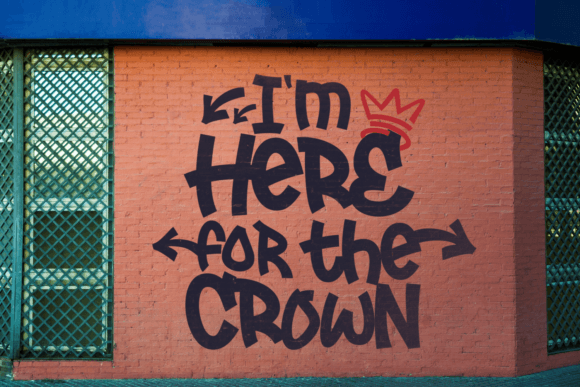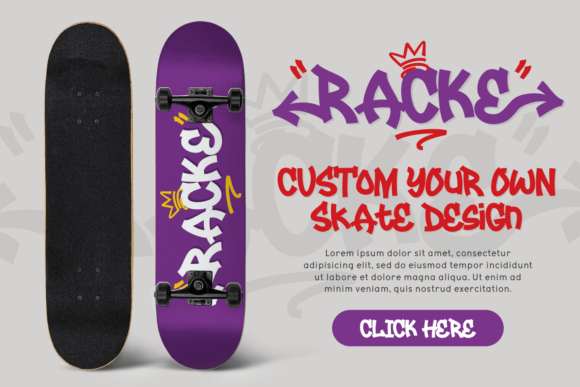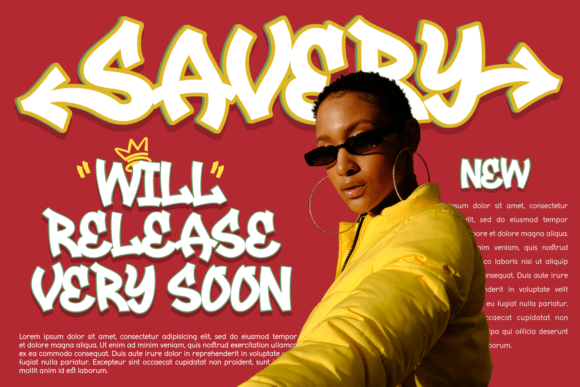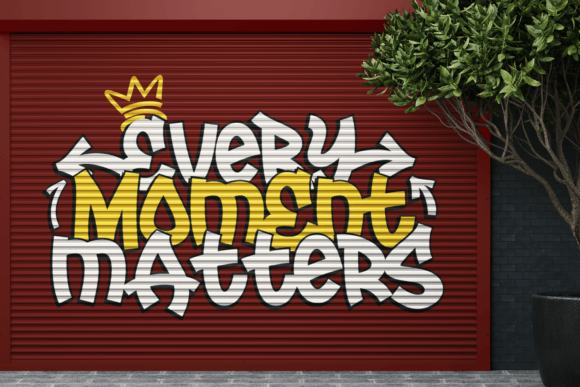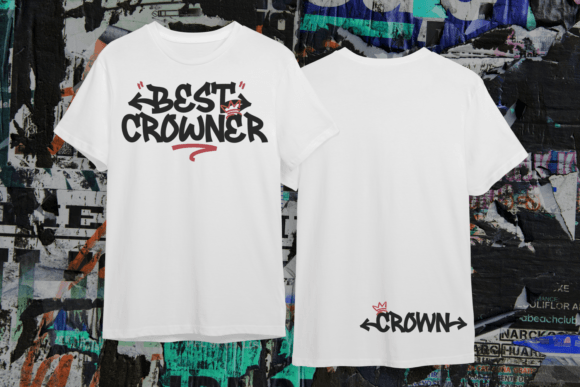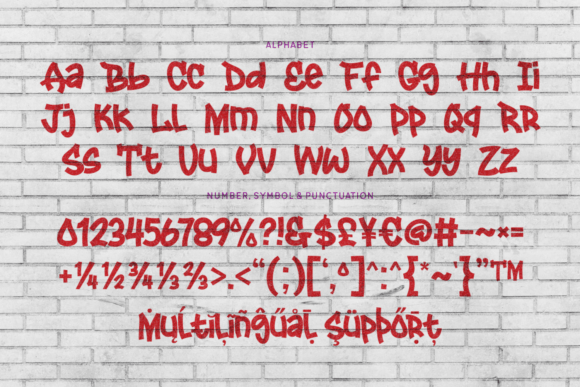
Unleash Your Creativity with Blaster Glory Font: The Ultimate Urban-Style Display Font
Are you a designer or crafter looking for a font that can add a touch of edginess and coolness to your projects? Look no further than Blaster Glory Font! This urban-style display font is perfect for creating hip and trendy designs with a graffiti vibe. In this article, we’ll dive into the features and benefits of Blaster Glory Font, and explore how it can elevate your designs to the next level.
What is Blaster Glory Font?
Blaster Glory Font is a modern, urban-style display font that’s designed to make a statement. Its unique and edgy design makes it perfect for creating bold and eye-catching designs that demand attention. Whether you’re working on a branding project, a poster, or a social media graphic, Blaster Glory Font is sure to add a touch of coolness and sophistication.
Key Features of Blaster Glory Font
- Urban-Style Design: Blaster Glory Font features a unique and edgy design that’s perfect for creating hip and trendy designs with a graffiti vibe.
- PUA Encoded: This font is PUA encoded, which means you can access all the glyphs and ligatures with ease. This makes it easy to use and customize the font to suit your needs.
- Display Font: Blaster Glory Font is a display font, which means it’s designed to be used at larger sizes. It’s perfect for headlines, titles, and other design elements that need to make a statement.
- Cool and Edgy: This font has a cool and edgy vibe that’s perfect for designers and crafters who want to add a touch of urban style to their designs.
Benefits of Using Blaster Glory Font
So why should you choose Blaster Glory Font for your next project? Here are just a few benefits of using this amazing font:
- Adds a Touch of Coolness: Blaster Glory Font adds a touch of coolness and sophistication to any design. Its unique and edgy design makes it perfect for creating bold and eye-catching designs.
- Perfect for Graffiti-Inspired Designs: If you’re looking to create designs with a graffiti vibe, Blaster Glory Font is the perfect choice. Its urban-style design and PUA encoding make it easy to use and customize.
- Easy to Use: This font is easy to use and customize, even for designers who are new to working with fonts. The PUA encoding makes it easy to access all the glyphs and ligatures.
- Versatile: Blaster Glory Font is a versatile font that can be used for a wide range of design projects. Whether you’re working on a branding project, a poster, or a social media graphic, this font is sure to add a touch of coolness and sophistication.
How to Use Blaster Glory Font
Using Blaster Glory Font is easy! Here are a few tips to get you started:
- Choose the Right Size: Blaster Glory Font is a display font, which means it’s designed to be used at larger sizes. Choose a size that’s big enough to make a statement, but not so big that it overwhelms your design.
- Experiment with Colors: This font looks great in a wide range of colors, from bold and bright to muted and pastel. Experiment with different colors to find the one that works best for your design.
- Pair it with Other Fonts: Blaster Glory Font can be paired with other fonts to create a unique and interesting design. Try pairing it with a sans-serif font for a bold and modern look.
Blaster Glory Font is a cool, urban-style display font that’s perfect for creating hip and trendy designs with a graffiti vibe. Its unique and edgy design, PUA encoding, and versatility make it a great choice for designers and crafters who want to add a touch of coolness and sophistication to their designs. Whether you’re working on a branding project, a poster, or a social media graphic, Blaster Glory Font is sure to make a statement. So why wait? Download Blaster Glory Font today and start creating amazing designs!